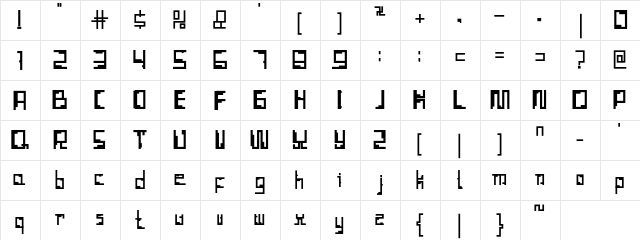
Tetris Hollow Regular
Design Context for Tetris Hollow Typeface
Tetris Hollow is a composed and adaptable typeface that performs quietly and consistently across a wide range of design contexts.